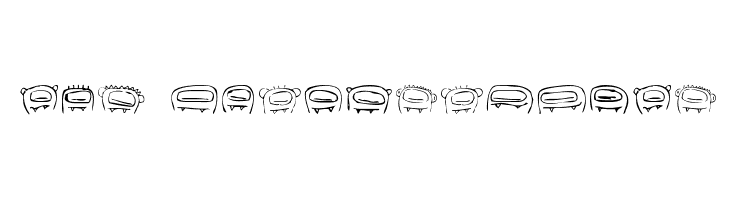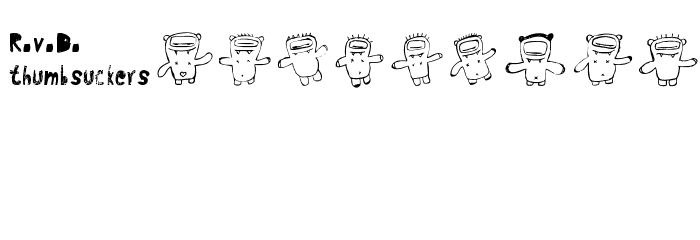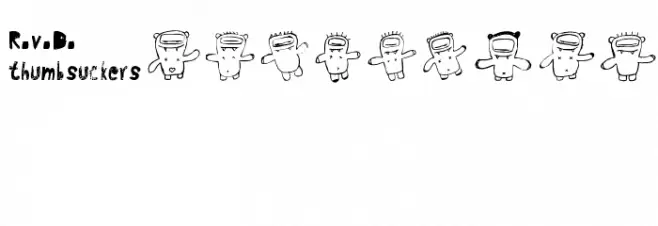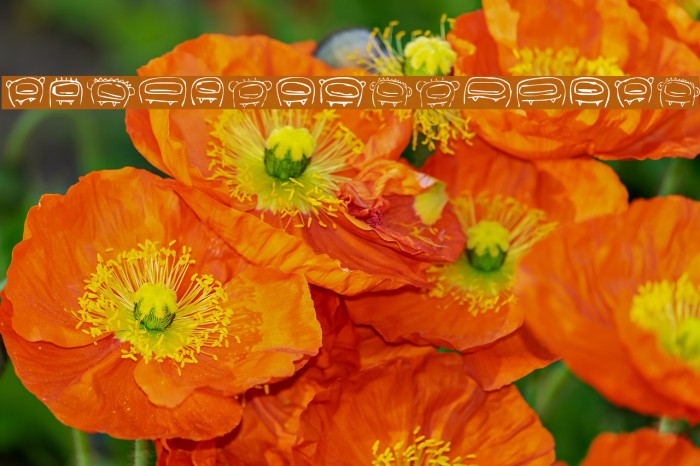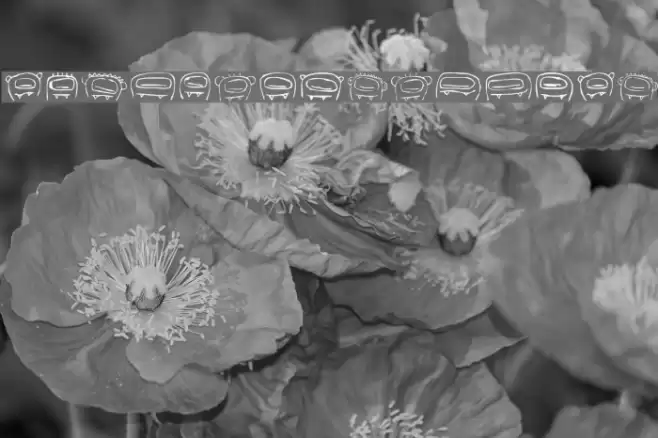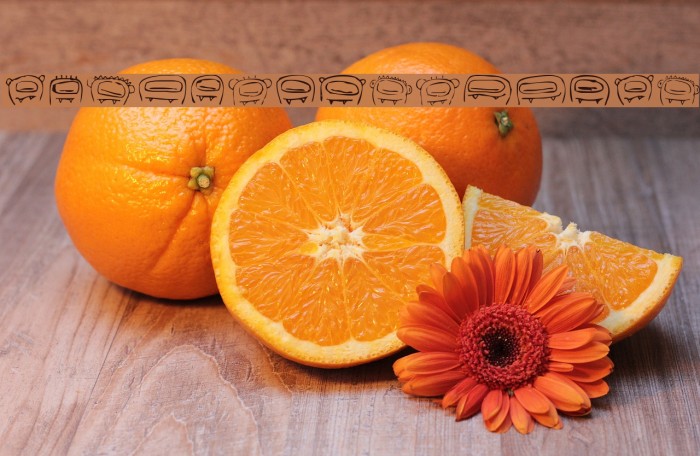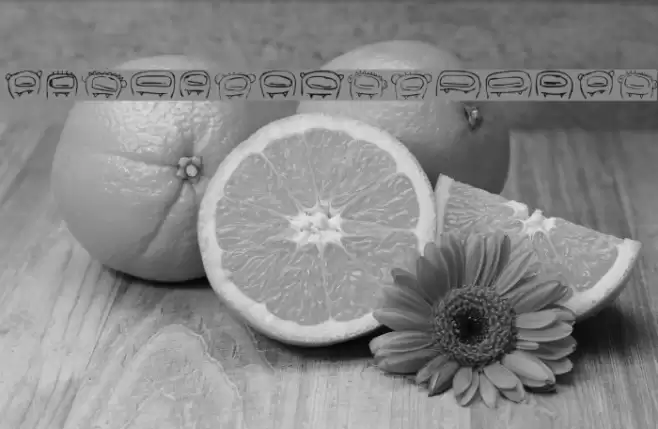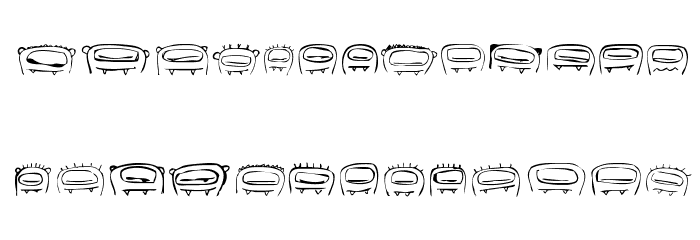
RvD_THUMBSUCKERS Font
RvD_THUMBSUCKERS Description
This font is a playful and whimsical design featuring cartoonish characters that resemble small creatures or monsters. Each character has a unique expression and quirky features, such as spiky hair or antennae, giving the font a lively and animated feel. The strokes are bold and rounded, with a hand-drawn quality that adds to its charm. The overall appearance is informal and fun, making it suitable for creative and lighthearted projects. The font's distinctive style captures attention and brings a sense of humor and personality to any design.
A playful, cartoonish font with quirky, animated characters from Dingbats fonts.
- Proposed Projects: Ideal for children's books, playful branding, comic strips, and creative posters.
- Overall Style: Whimsical
- Use Case: Logos, Posters, Children's media